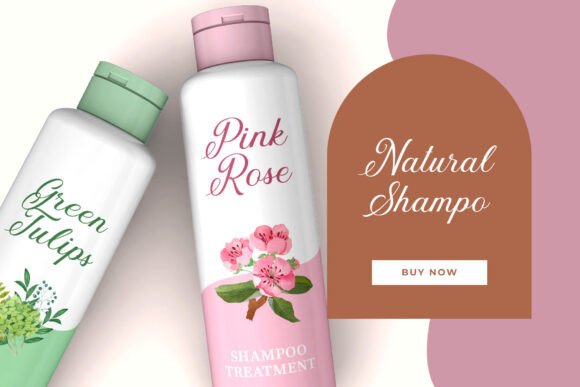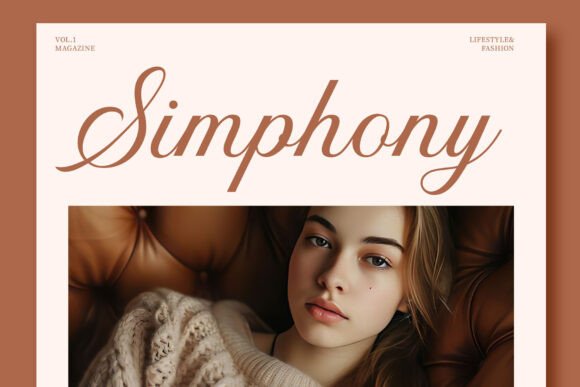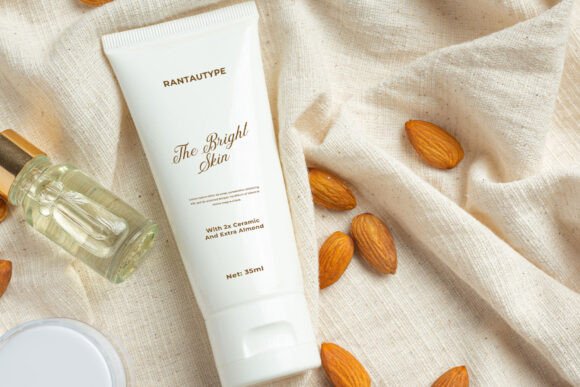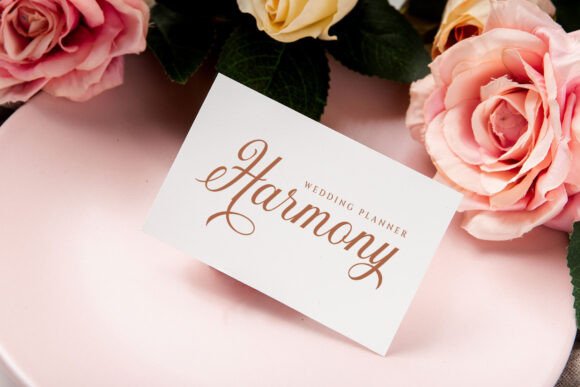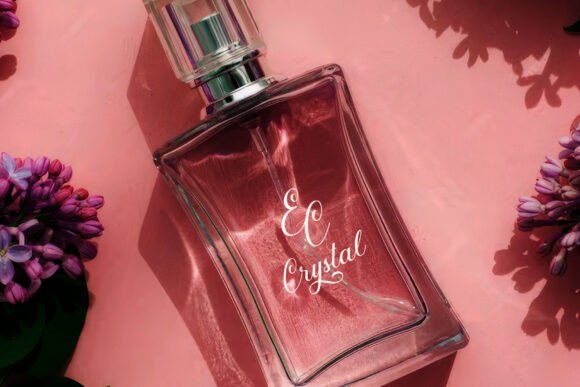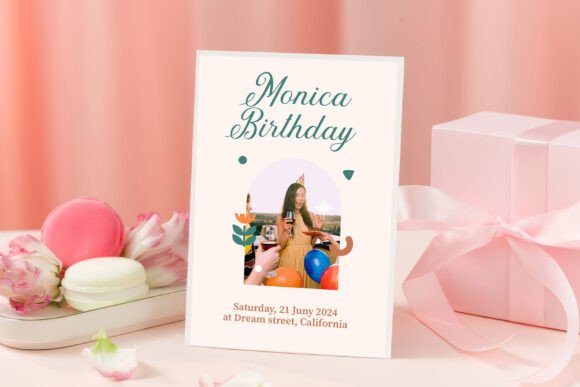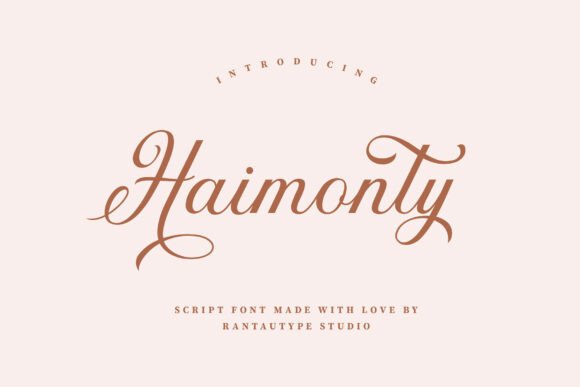
Introducing Haimonty Font: Elevate Your Designs with Elegance and Romance
In the world of typography, few fonts capture the essence of elegance and romance as beautifully as Haimonty. This stunning script font, inspired by the art of calligraphy lettering, is designed to add a touch of luxury and sophistication to your creative projects. Whether you’re a designer, craftsperson, or simply someone who appreciates the beauty of fine typography, Haimonty is sure to captivate your imagination.
The Inspiration Behind Haimonty
Haimonty is more than just a font – it’s a reflection of the artistry and craftsmanship that goes into traditional calligraphy. Each letter has been carefully crafted to evoke a sense of elegance and refinement, making it perfect for projects where you want to make a lasting impression. From wedding invitations and event branding to magazine covers and album artwork, Haimonty’s romantic and flowing script is sure to add a touch of class to any design.
Key Features of Haimonty Font
So, what sets Haimonty apart from other script fonts? Here are just a few of its key features:
- Elegant and Romantic Design: Haimonty’s calligraphy-inspired lettering exudes elegance and romance, making it perfect for designs that require a sophisticated touch.
- Alternate Characters: With a range of alternate characters, Haimonty offers flexibility and versatility, allowing you to experiment with different styles and variations to find the perfect look for your project.
- Handwritten Feel: Unlike some script fonts that can feel overly uniform or mechanical, Haimonty retains a beautiful handwritten feel that adds warmth and personality to your designs.
Whether you’re working on a branding project, designing wedding invitations, or creating artwork for a music album, Haimonty is a versatile font that can be used in a wide range of applications. Here are just a few ideas to get you started:
- Logos and Branding: Use Haimonty to create a memorable logo or brand identity that exudes elegance and sophistication.
- Wedding Events and Invitations: Add a touch of romance and luxury to your wedding invitations, programs, and other stationery with Haimonty’s beautiful script.
- Photography and Watermarks: Use Haimonty as a watermark for your photography or add it to your images for a stylish and sophisticated touch.
- Magazines and Covers: Haimonty’s elegant design makes it perfect for magazine covers, article titles, and other typography needs.
- Business Cards and Stationery: Elevate your business cards, letterheads, and other stationery with Haimonty’s refined and professional script.
Why Choose Haimonty Font?
With so many fonts available, why choose Haimonty for your design projects? Here are just a few reasons:
- Unique and Memorable: Haimonty’s elegant design and handwritten feel make it a unique and memorable font that will help your designs stand out.
- Flexible and Versatile: With alternate characters and a range of design possibilities, Haimonty can be adapted to suit a wide range of projects and styles.
- Easy to Use: Haimonty is designed to be easy to use, even for those without extensive design experience.
If you’re looking for a font that will add a touch of elegance, romance, and sophistication to your design projects, look no further than Haimonty. With its beautiful calligraphy-inspired script, flexible design, and wide range of applications, Haimonty is the perfect choice for designers, craftspersons, and anyone who appreciates the art of fine typography. So why wait? Discover the beauty of Haimonty today and elevate your designs to new heights!